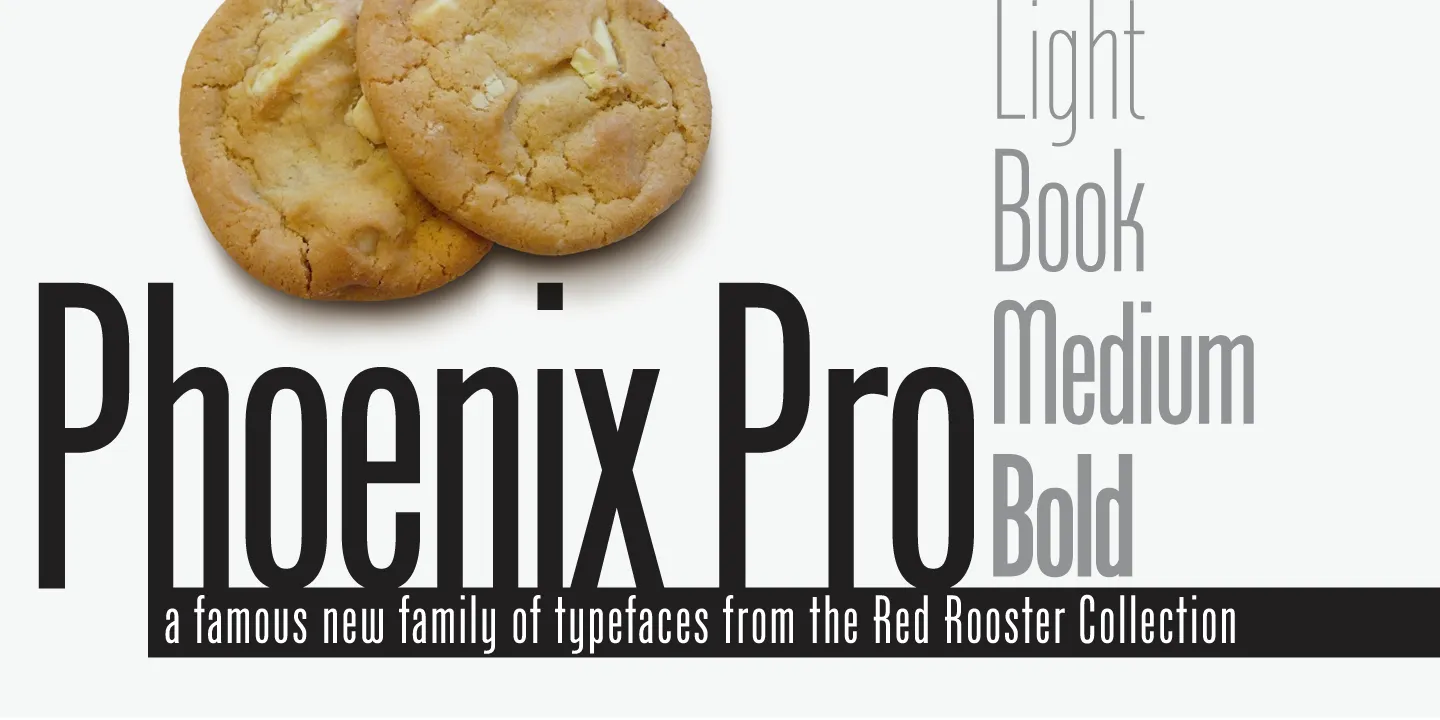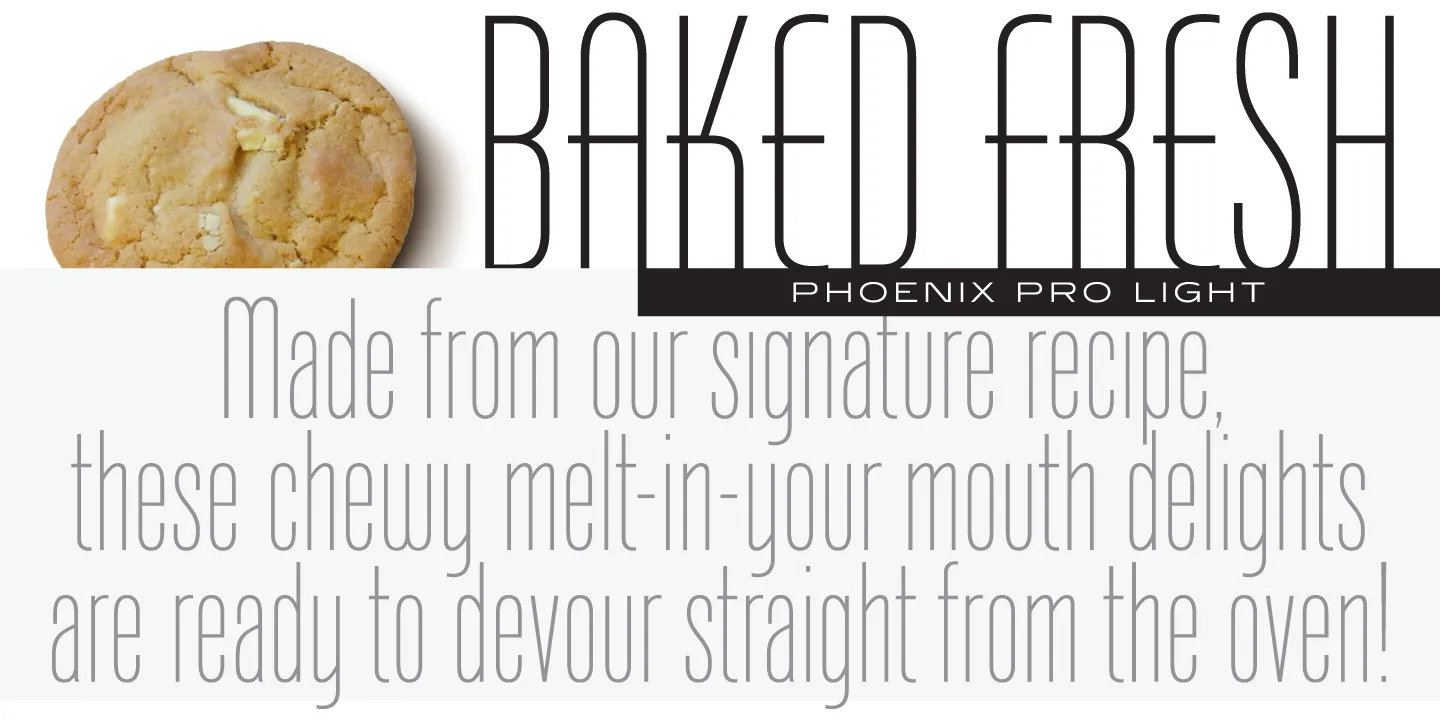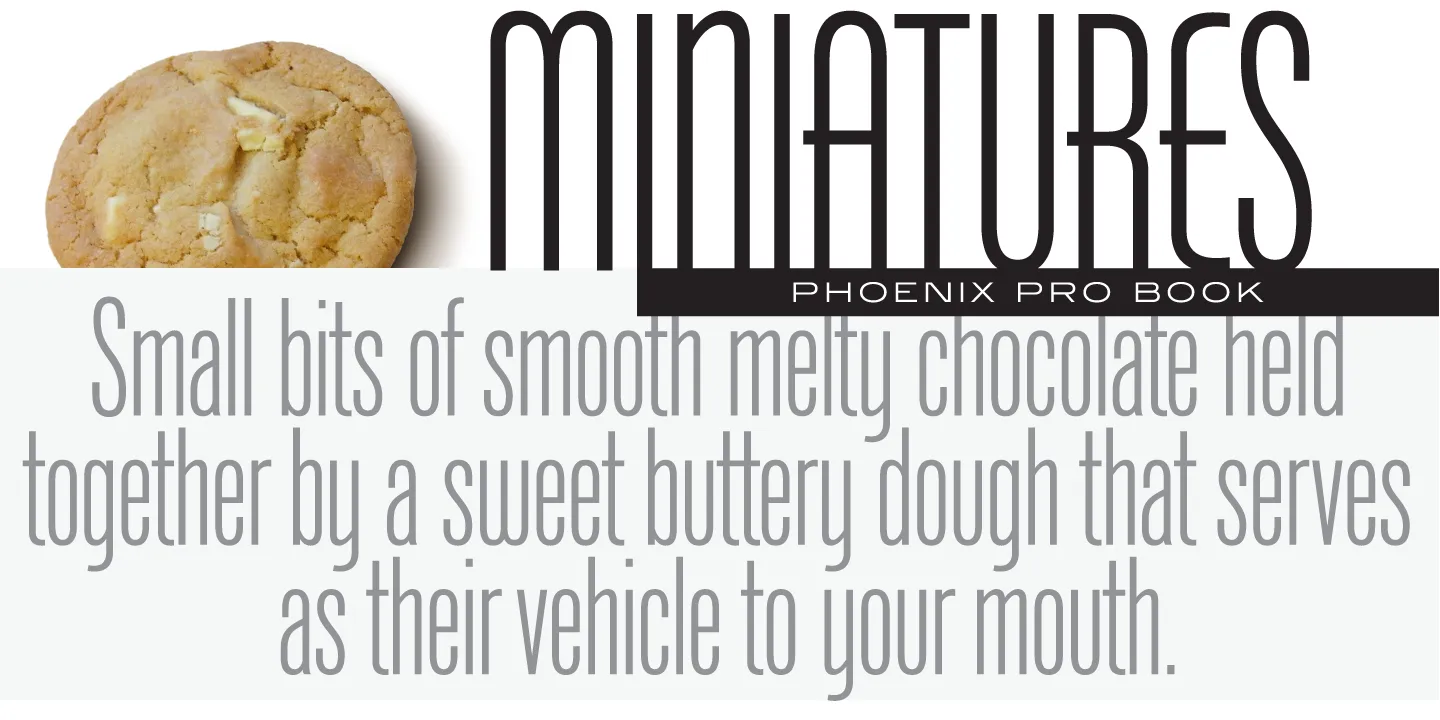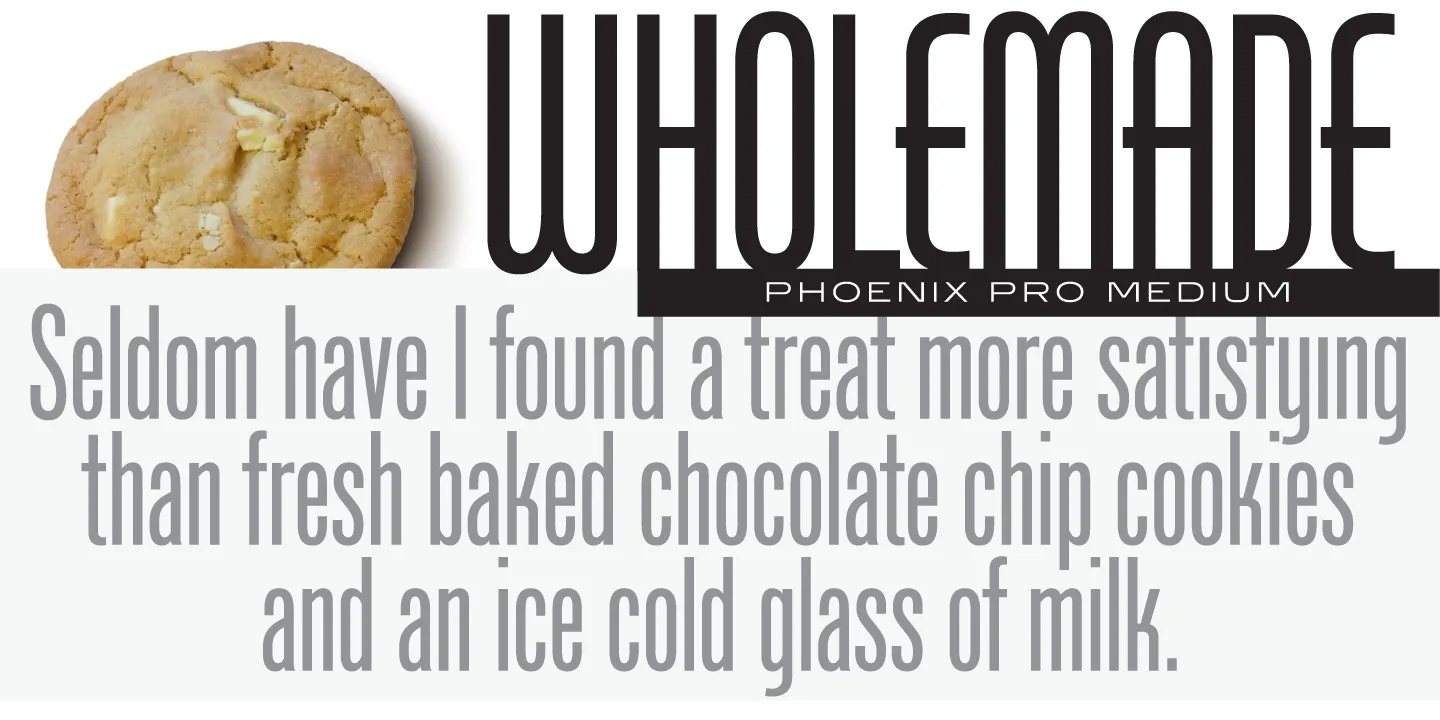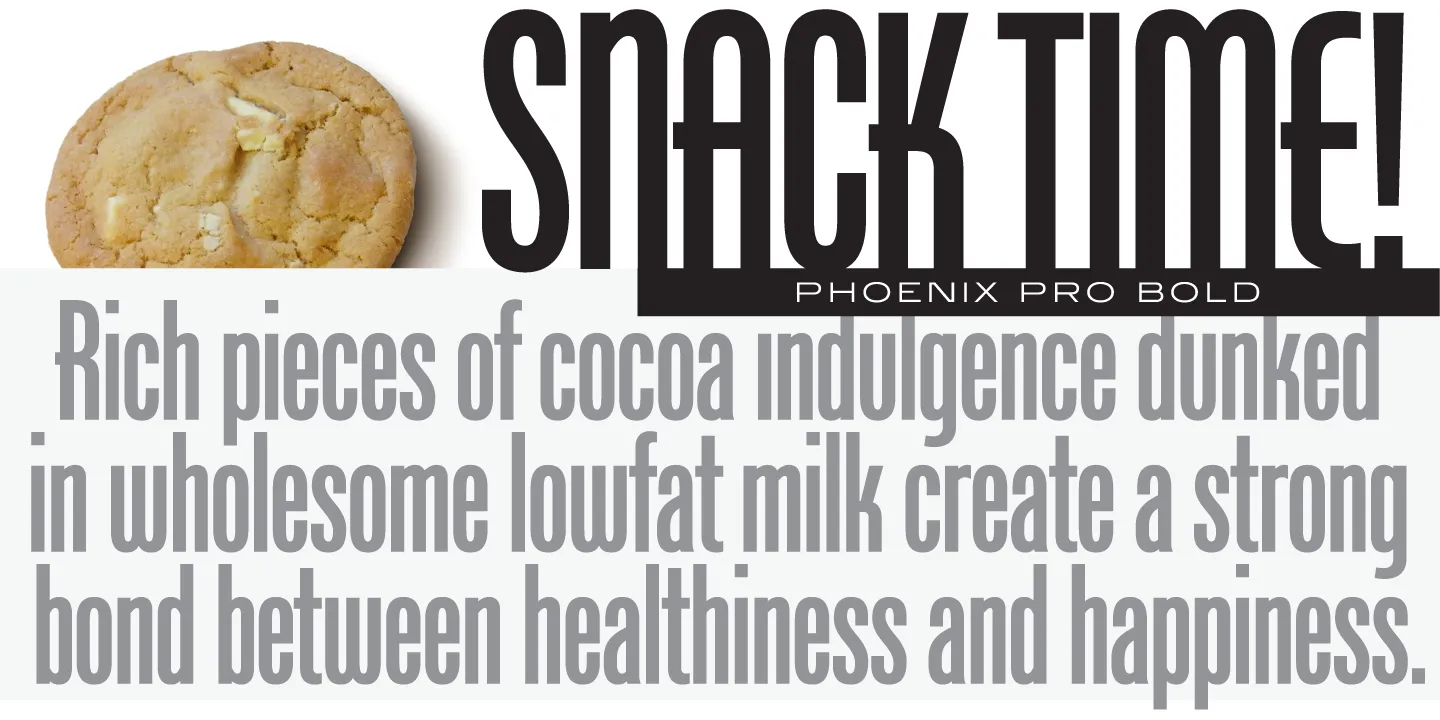
Phoenix Font Family
Phoenix is a compressed sans serif font family. It was produced by Steve Jackaman (ITF) and Ashley Muir in 2011. The original typeface, “Phenix,” was created in 1935 by Morris Fuller Benton for American Type Founders (ATF). Jackaman and Muir designed three complementary weights to accompany the original, and each contains all-new alternate glyphs. Phoenix has a familiar, approachable feel, and works well at all text sizes. The medium weight gained popularity after being featured in the famous “got milk?” American ad campaign.
OpenType Features
• Common Ligatures
• Fractions
• Ordinal Numerals
• Stylistic Alternates
• Stylistic Sets
• Subscript
• Superscript